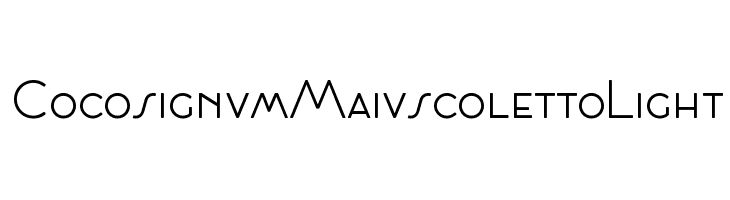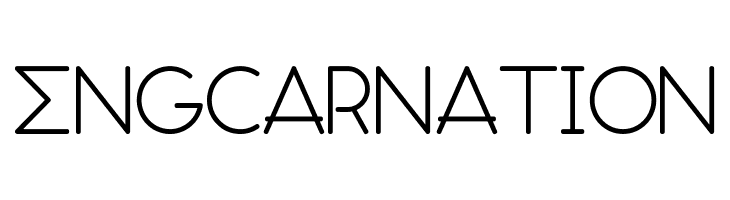
( Fonts by Ariq Sya - marsnev.com )
A modern, geometric sans-serif font with uniform stroke width.
A modern, clean sans-serif font with uniform strokes and excellent readability.
A bold, geometric font with a modern and industrial aesthetic.
( Fonts by Billy Argel )
A bold, distressed font with a vintage, rugged appearance.
A bold serif font with a classic and authoritative style.
A modern, rounded font with a friendly and approachable style.
( Fonts by Manfred Klein - manfred-klein.ina-mar.com )
A modern, oblique sans-serif font with clean lines and consistent stroke width.
( Description: Fungi come in many forms from mycorrhizal fungi, endomycorrhiza, ectomycorrhiza, trichoderma, mycorrhiza to table mushrooms. Show your love of all things fungi by using this free fungi font. License: Free to use anywhere under Creative Commo )
A playful serif font with decorative mushroom-themed uppercase letters.
( Paul Lloyd Fonts )
A wide, bold font with uniform strokes and modern appeal.